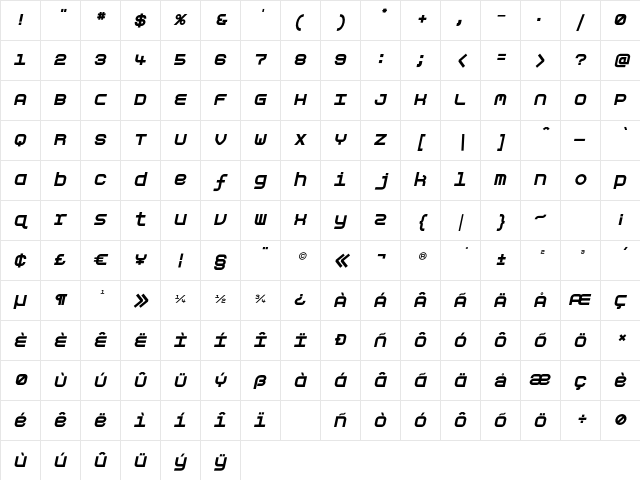
Aspirin-Refill Collapsed Free Font
Aspirin-Refill Collapsed
Style: Collapsed
Complete Aspirin-Refill Collapsed glyph index. Displaying only characters natively supported by Aspirin-Refill Collapsed font.
Design Context for Aspirin-Refill
Aspirin-Refill is a composed and adaptable typeface that performs quietly and consistently across a wide range of design contexts.